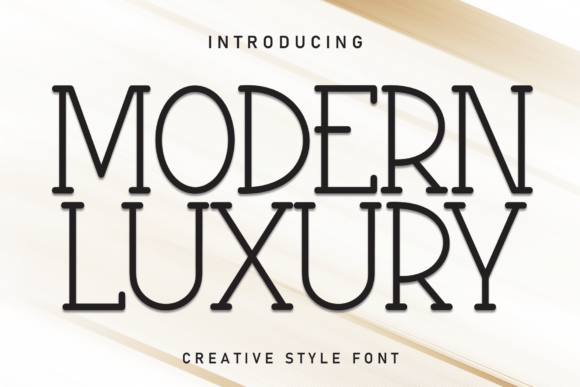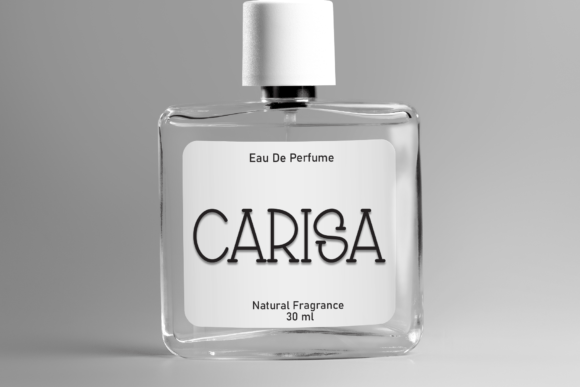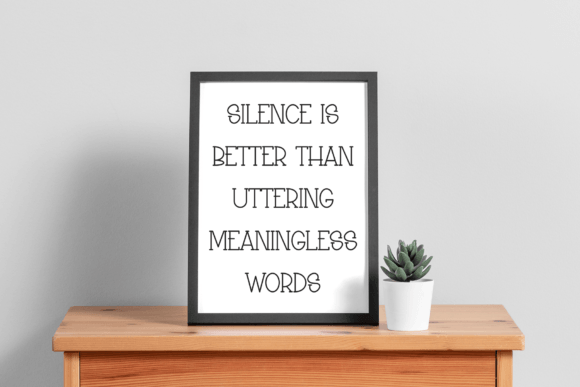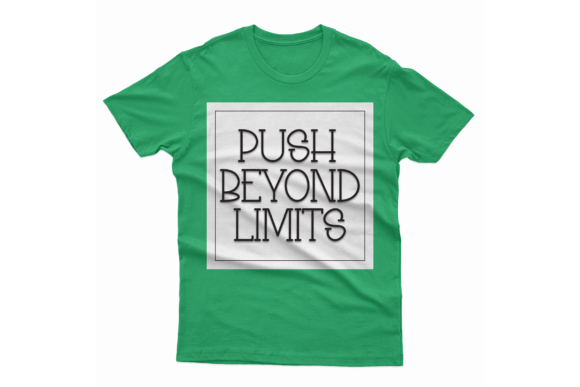
Modern Luxury Font
About the Modern Luxury Font
Introducing the Modern Luxury Font, a beautifully crafted typeface designed to elevate your creative projects. Modern Luxury is a stylish typeface with bold, solid letters and subtle, elegant serifs. It’s designed to convey sophistication and contemporary style, perfect for projects that demand a blend of classic charm and modern flair.
Modern Luxury excels in headlines, logos, and short-form text for branding materials and high-end packaging. Its strong serifs provide a touch of classic elegance that elevates contemporary designs. Avoid using it for body text or extended paragraphs; the boldness can become overwhelming and hinder readability.
This typeface projects a sophisticated and confident personality, ideal for luxury brands, premium products, and projects requiring a sense of authority. It pairs well with clean sans-serif fonts like Helvetica Neue for a balanced contrast, or a delicate script font like Lora for a touch of handwritten elegance, depending on the desired level of formality.
Consider pairing it with a geometric sans-serif for a modern and minimalist feel or a warmer, neutral serif for a more traditional approach. The key is to maintain visual harmony while allowing Modern Luxury to stand out as the dominant, statement typeface.
Modern Luxury Font Usage Examples
Modern Luxury Font Example